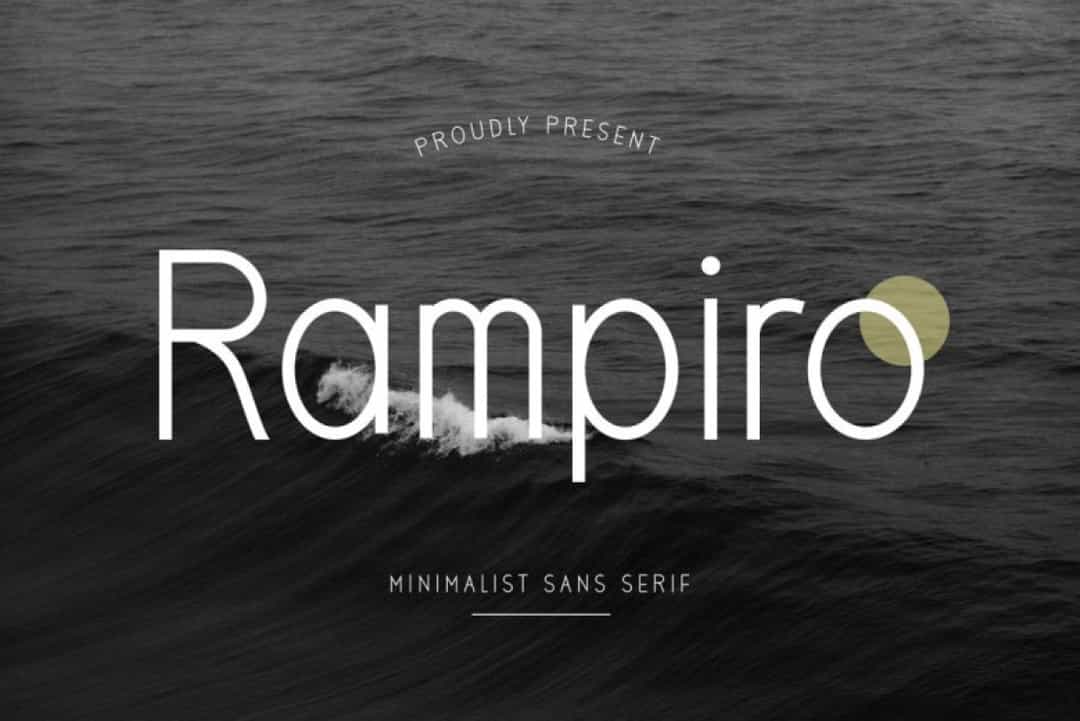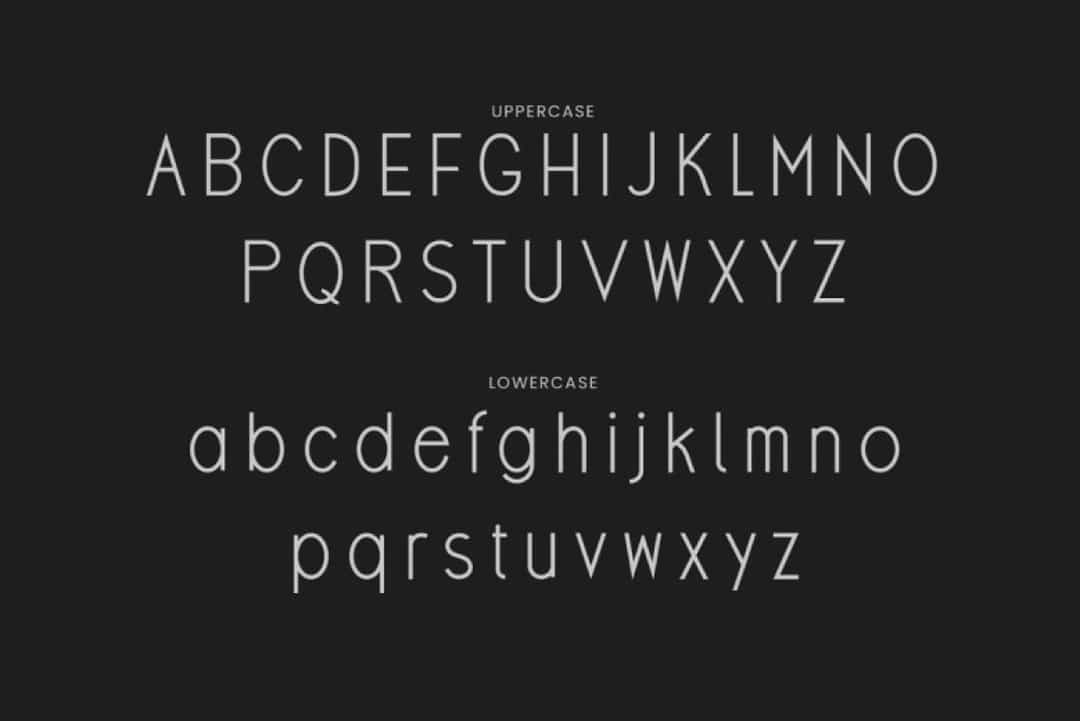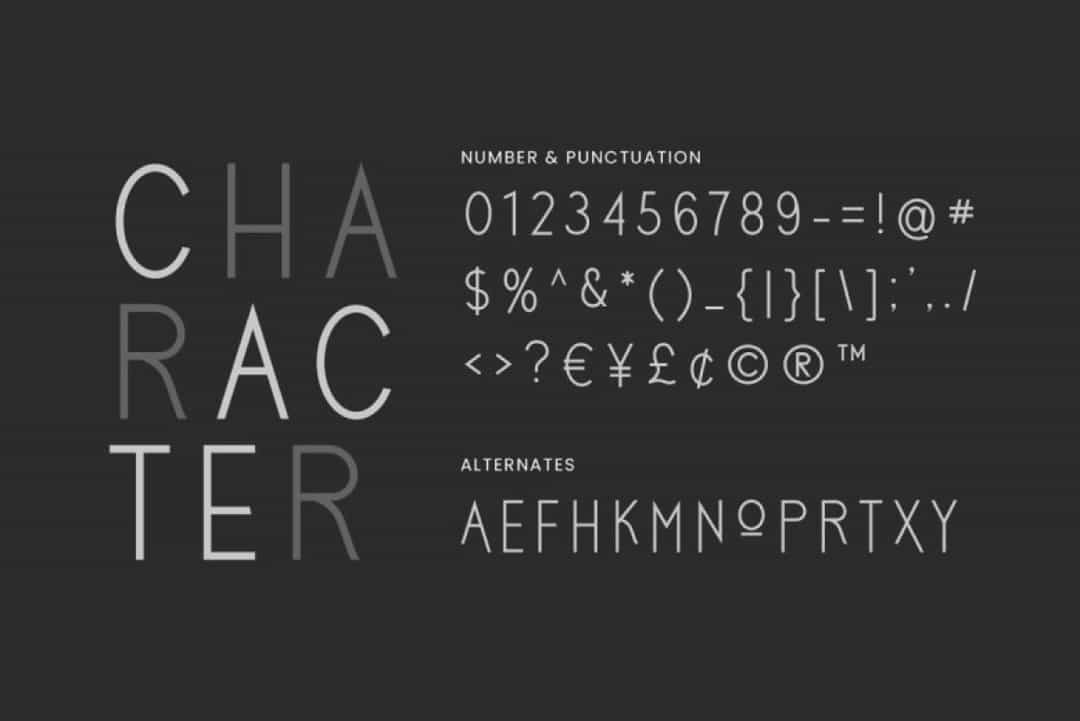
“Rampiro”, a minimalist sans serif typeface, is ideal for use in logos, branding projects and social media posts, advertisements, product packaging designs wedding invitations product designs Labels photographs watermarks stationery and many other creative applications.